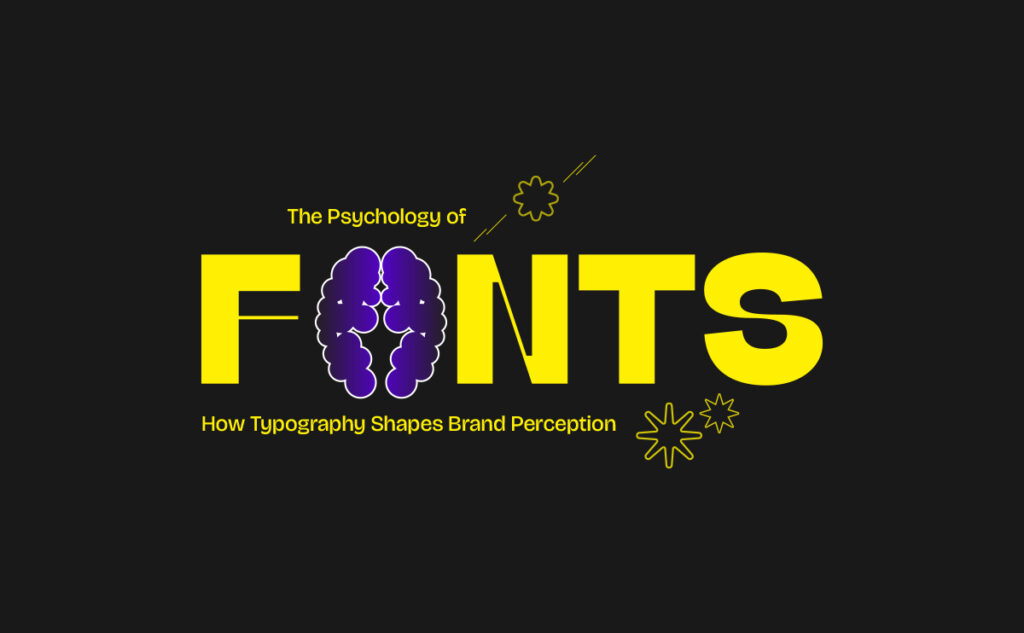
Fonts Speak Louder Than Words
Every day, we scroll, shop, and scan through hundreds of brands, and within seconds, we decide how we feel about them. But here’s the thing most people miss: before the colors, before the copy, before the visuals, it’s often the font that does the talking. That’s the power behind the psychology of fonts, how simple letterforms can shape complex emotions.
Typography isn’t decoration; it’s communication. It carries personality, tone, and emotion in every curve and corner. A single font can make your brand look bold, friendly, timeless, or tech-forward, or, if you choose wrong, it can say none of that. Think of fonts as your brand’s voice; they whisper, shout, or sing your message before you even speak.
Why Your Font Choice Says More Than You Think
Fonts aren’t just about aesthetics, they’re strategic design choices that trigger how people feel. When your audience sees your logo or headline, their brain instantly decides whether your brand feels trustworthy, playful, elegant, or innovative.
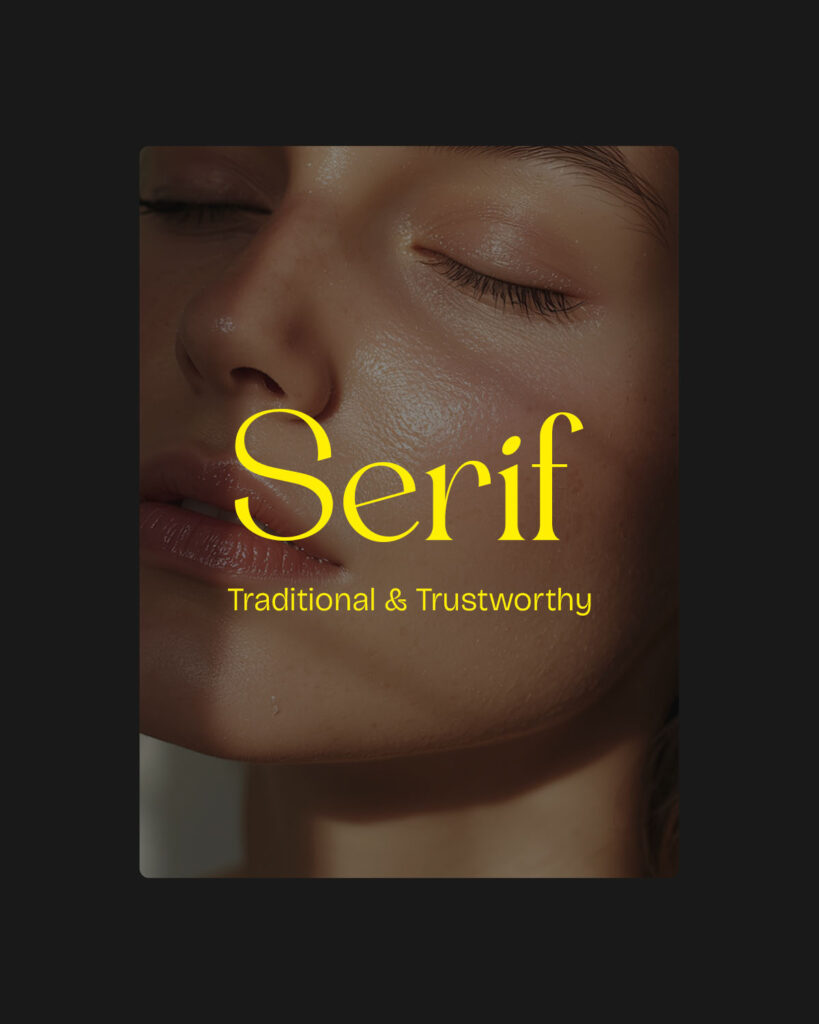
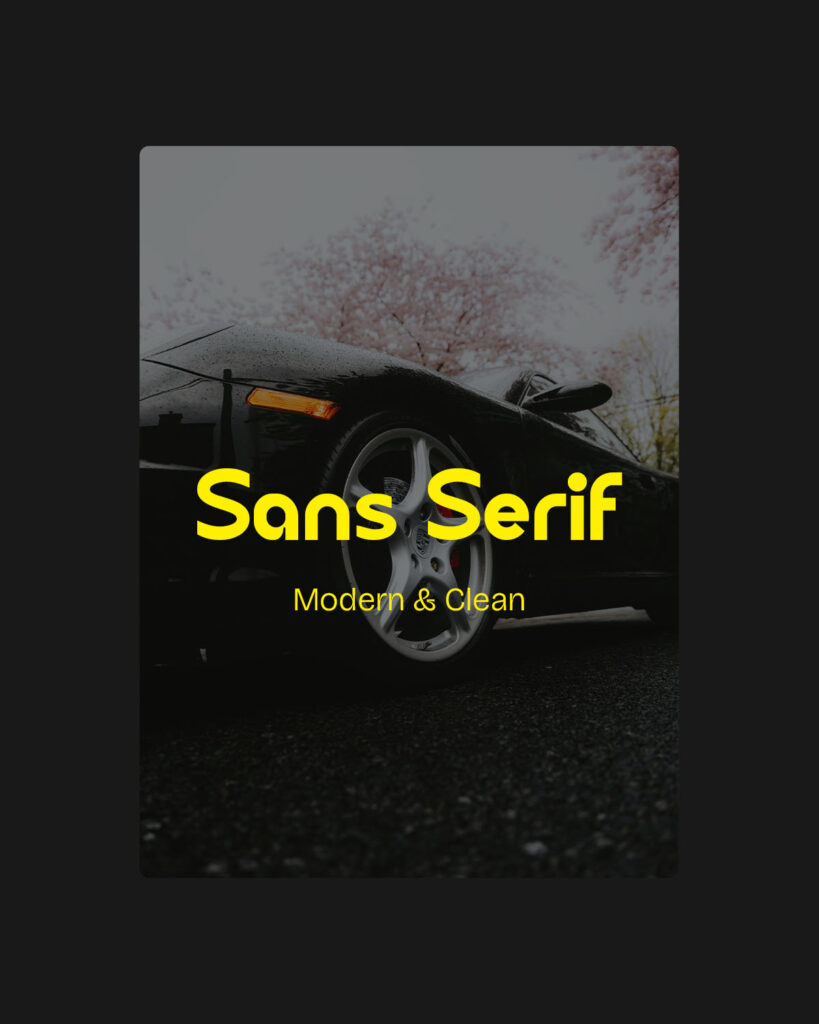
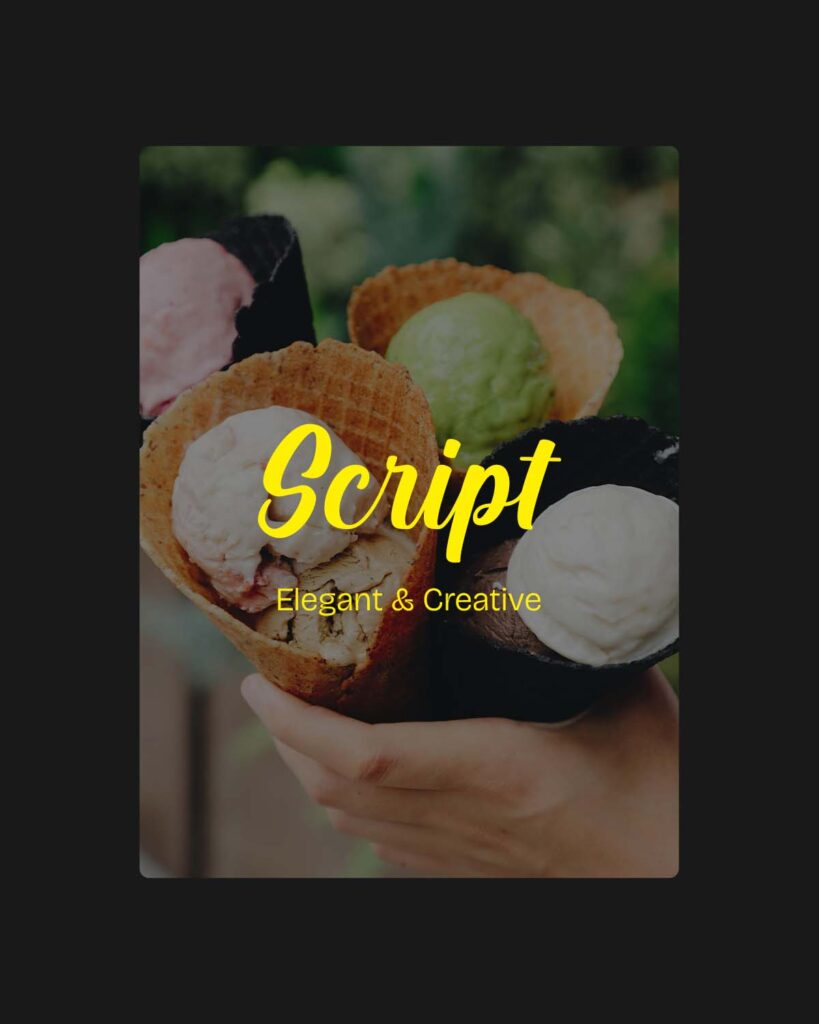
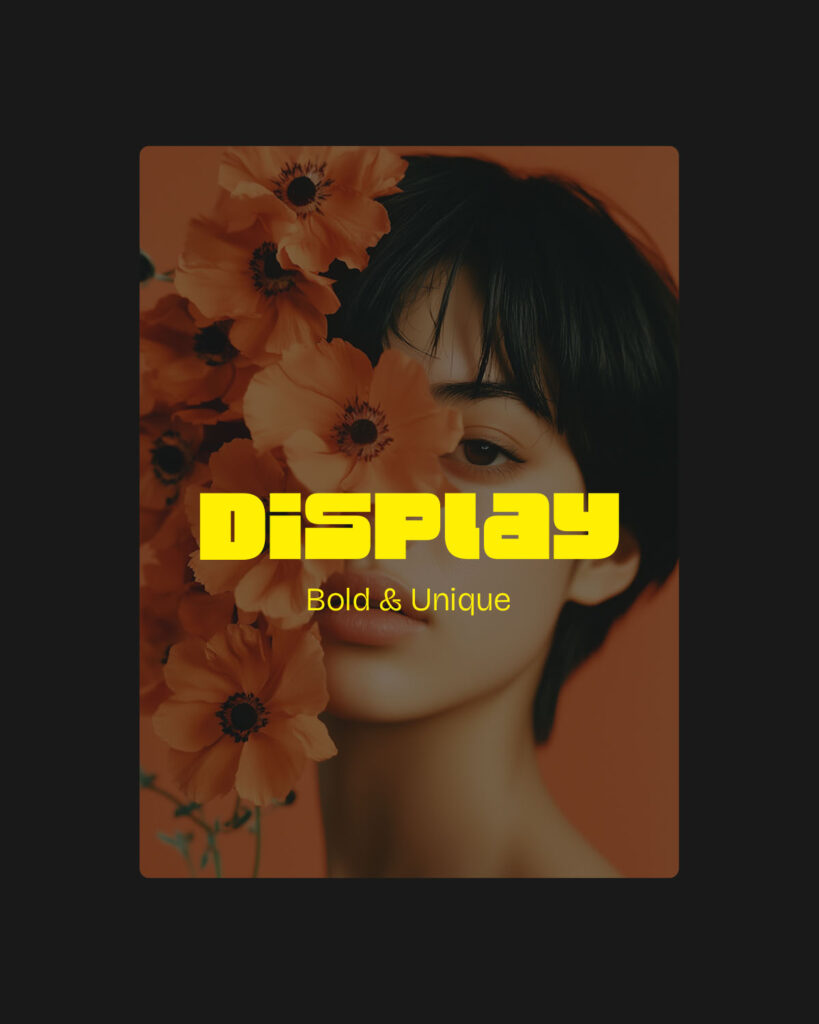
Here’s how that magic works:
- Serif Fonts – Those little “feet” on the letters? They’re the storytellers of tradition. Think of them as the wise old souls of typography, stable, reliable, classic. Banks, newspapers, and heritage brands love them because they scream trust and authority. (Think Times New Roman, Garamond, Georgia).
- Sans Serif Fonts – Clean, modern, no extra fluff. They give off a confident, approachable vibe. Perfect for tech, startups, and minimalist brands that value clarity and innovation. (Think Helvetica, Poppins, Google Sans.)
- Script Fonts – Elegant, flowing, and full of personality. Script typefaces add emotion and creativity, perfect for fashion, beauty, and luxury brands. (Think Edwardian Script, Allura, or any typeface that looks handwritten with finesse.)
- Display Fonts – The attention-grabbers. These fonts live to stand out, bold, artistic, and often rebellious. They’re great for posters, packaging, and campaigns that want to be remembered. (Think Impact, Lobster, Bebas Neue.)
One simple font switch can completely change how your audience feels, from serious to fun, distant to warm, or corporate to creative.
Inside the Mind: The Science Behind Font Psychology
Believe it or not, your brain reacts to fonts the same way it reacts to faces, emotionally and instinctively. That’s why typography feels so personal.
- Thin strokes = luxury & sophistication. They suggest elegance and exclusivity, think of high-end fashion houses and jewelry brands.
- Bold type = confidence & strength. It’s why sports brands, activism movements, and fitness companies lean toward thicker, stronger lettering.
- Rounded edges = friendliness & warmth. Brands like Airbnb or food startups use them to appear approachable, human, and community-driven.
Cognitive psychology proves that shapes and weights affect emotion. When your typography aligns with your brand’s personality, people “feel” it instantly, even if they can’t explain why.
Let’s look at how some of the biggest brands nail their font game:
- Nike – The slanted, bold sans-serif font looks fast, strong, and powerful, a perfect visual echo of their “Just Do It” attitude.
- Apple – Minimal sans-serif fonts like San Francisco speak innovation, simplicity, and precision – everything Apple stands for.
- Vogue – That elegant high-contrast serif (Didot) oozes luxury and authority. You see it and instantly think “timeless fashion.”
- Disney – Whimsical, handwritten, and full of childhood wonder. The font itself feels magical, just like their stories.
- Google – Rounded, colorful letters that look playful yet clear. It says, “We’re smart, but we’re fun.”
- Spotify – With its rounded sans-serif wordmark and vibrant green hue, Spotify’s typography feels youthful, energetic, and approachable.
Real Brands, Real Stories
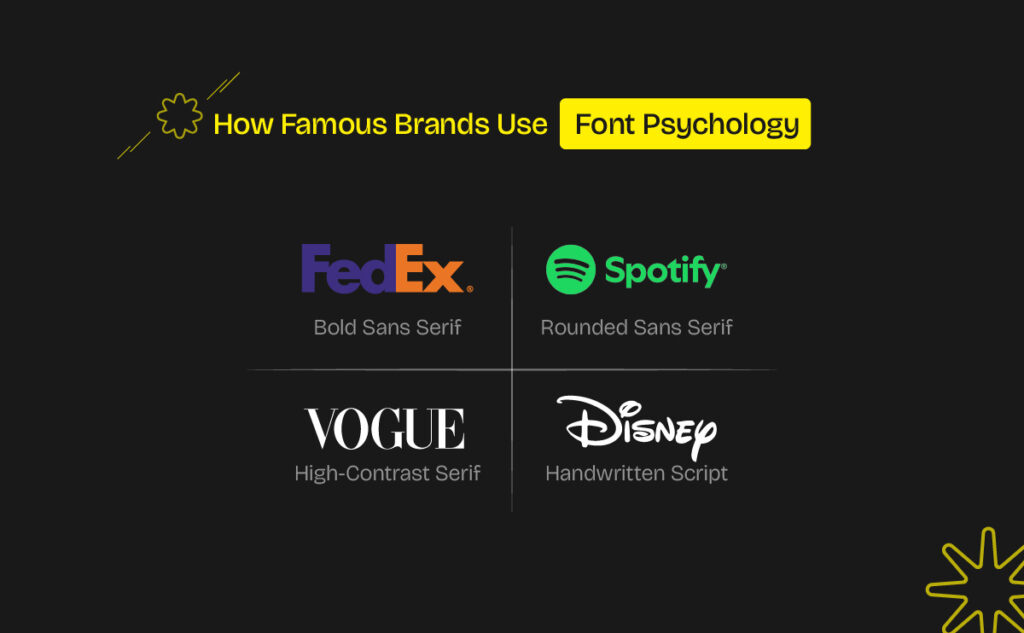
Every one of these fonts is a visual expression of what the brand believes in. It’s not random, it’s intentional design psychology.
How to Pick the Font That Fits Your Brand
Here’s a quick cheat sheet to make your typography work with your brand, not against it:
| Brand Trait | Font Type | Example Fonts |
| Trustworthy & Traditional | Serif | Garamond, Times, Georgia |
| Friendly & Modern | Rounded Sans Serif | Poppins, Avenir |
| Premium & Elegant | Thin Serif / Calligraphy | Didot, Bodoni, Quicksand |
| Bold & Disruptive | Geometric Sans Serif (Bold) | Futura, Helvetica Neue Bold |
💡 Pro Tip: Pick 3-4 words that define your brand’s personality (like minimal, confident, or playful) and test fonts that visually match those traits. Try your choices in different sizes and mediums – what looks great on your screen may not pop the same way on mobile or print.
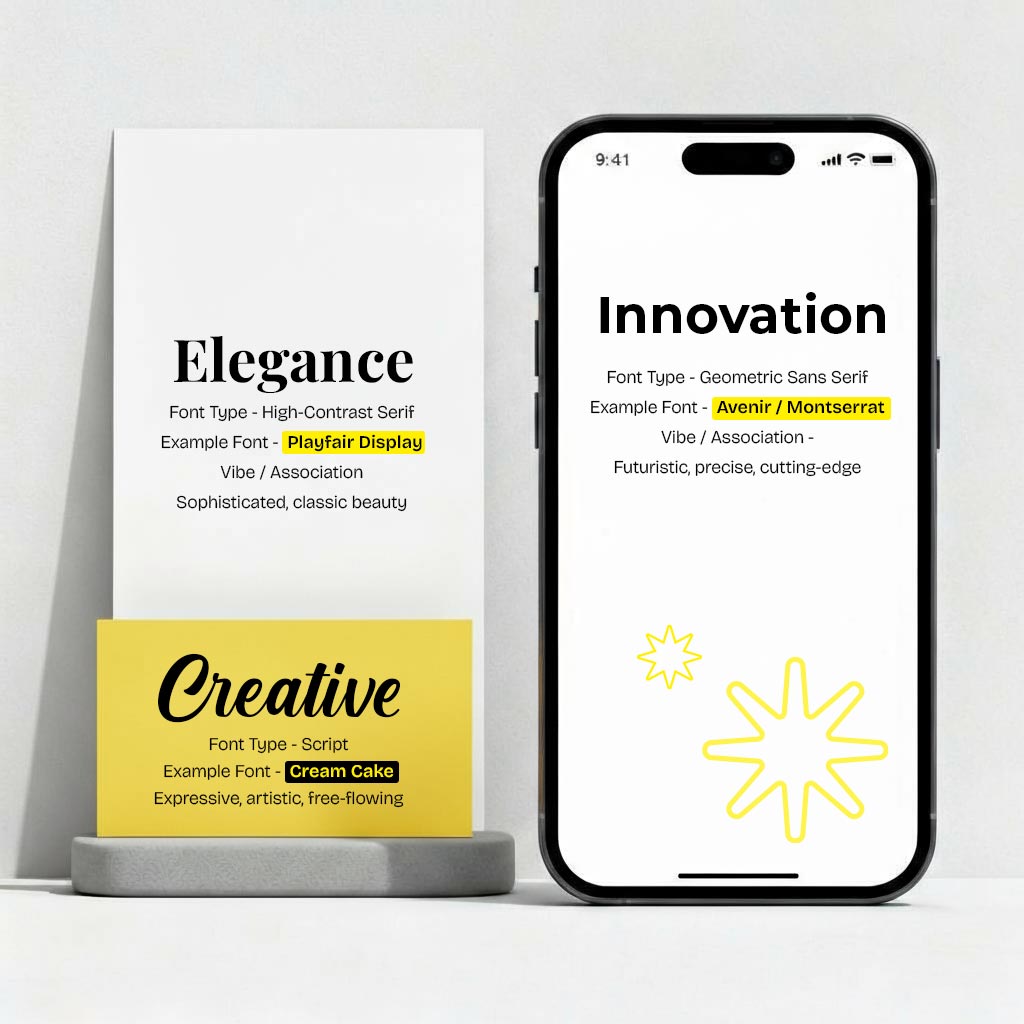
Common Font Fails Designers Still Make
Let’s be honest, even great designers slip up with typography sometimes. Watch out for these traps:
Next time you design something, a logo, a pitch deck, even a social post, pause and ask yourself:
“Does this font sound like my brand?”